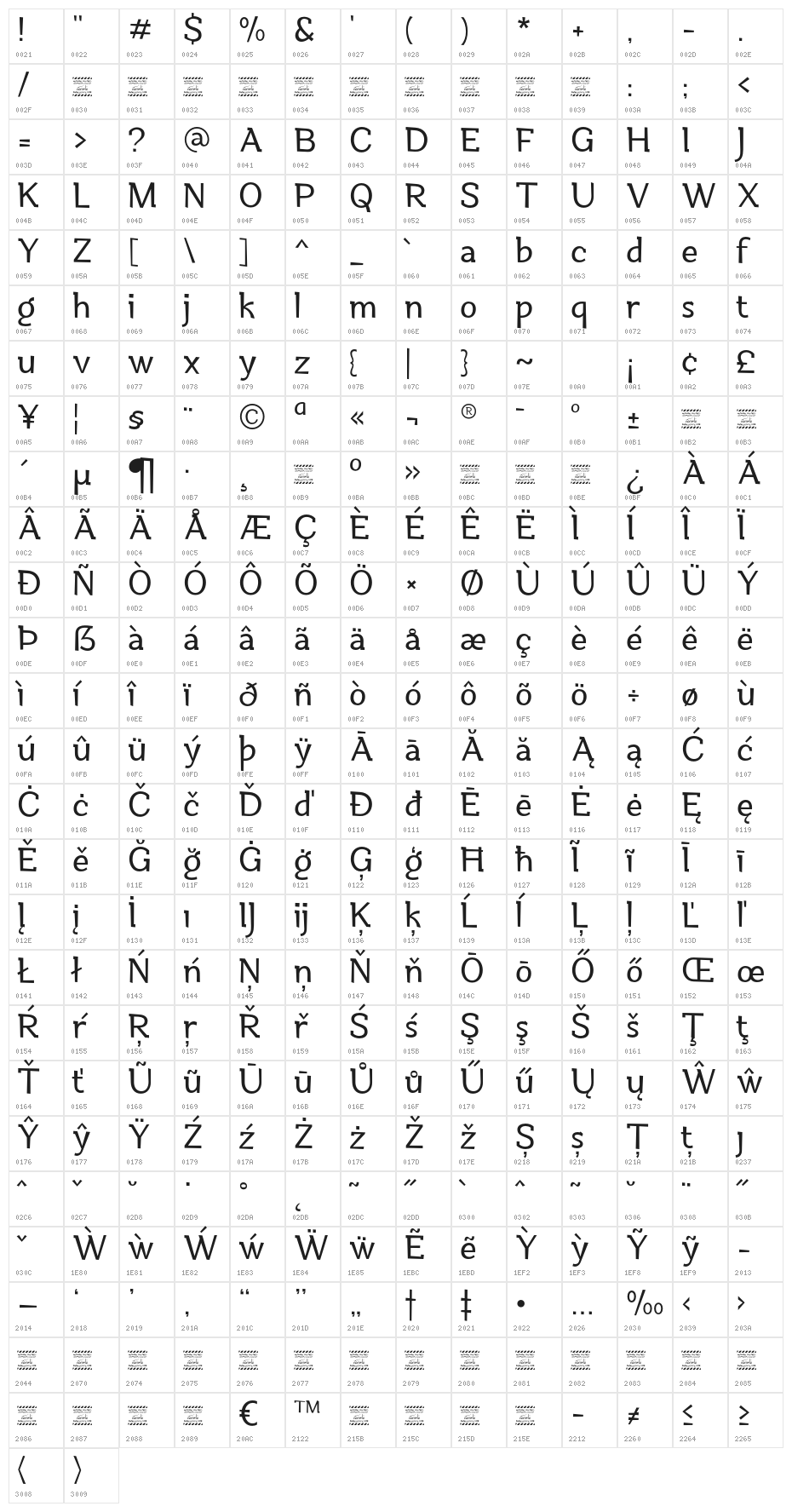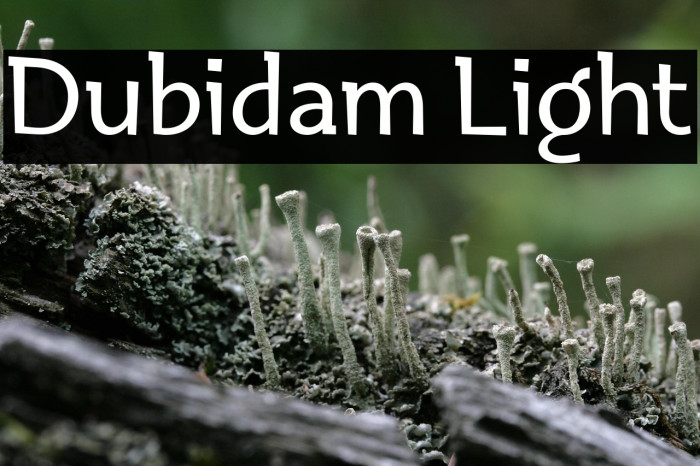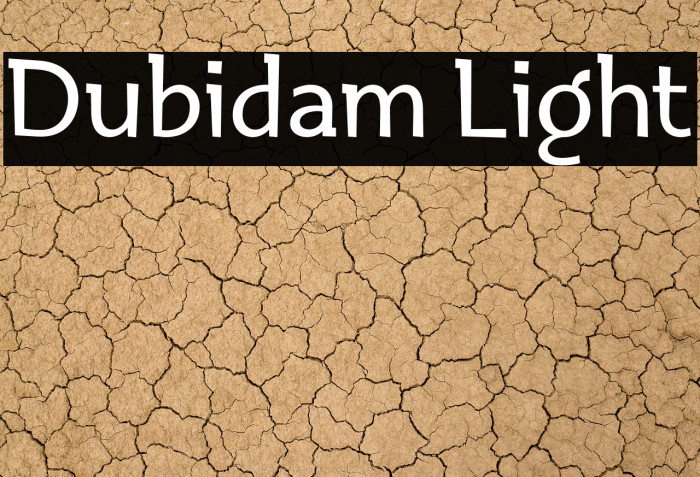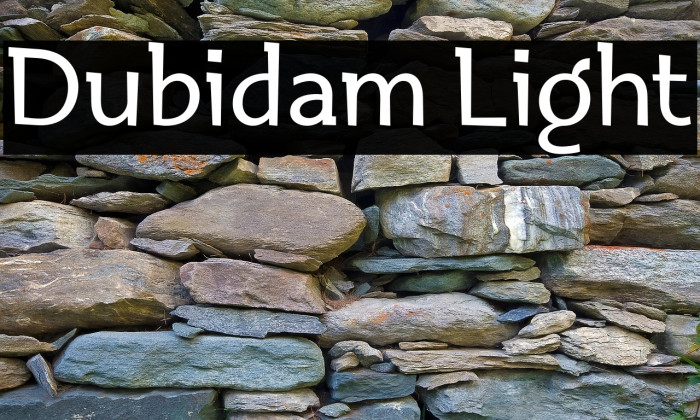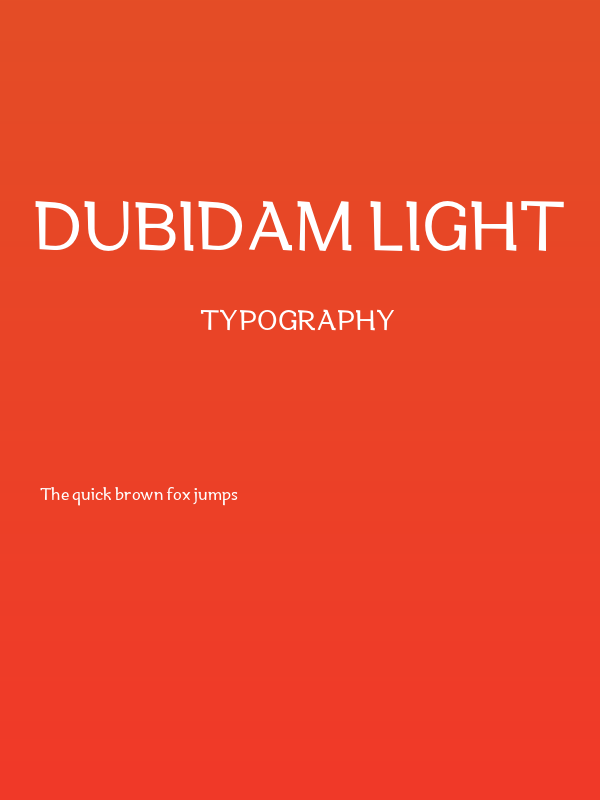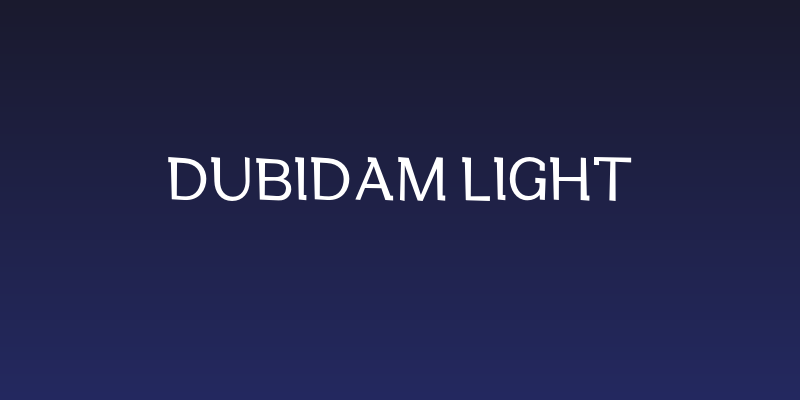
Dubidam Light Font
Dubidam Light Description
This font features a playful and slightly whimsical design with a handwritten feel. The characters have a casual and friendly appearance, with subtle irregularities that add charm and personality. The strokes are consistent in weight, providing a clean and approachable look. The uppercase letters are bold and assertive, while the lowercase letters maintain a more relaxed and informal style. The numerals and special characters are crafted to match the overall aesthetic, ensuring a cohesive appearance across all text elements.
Overall StyleCasual
Use CaseLogos, Headlines, Informal Text
Proposed ProjectsIdeal for greeting cards, children's books, casual branding, and playful social media graphics.